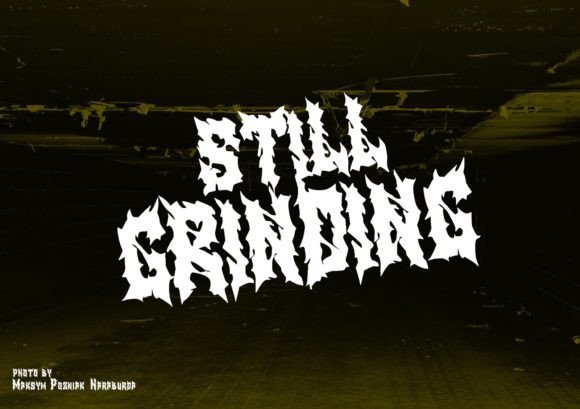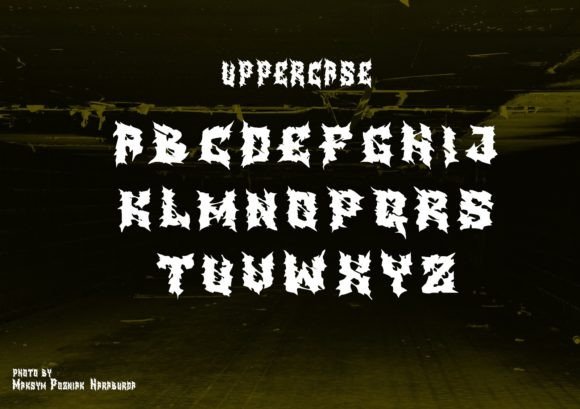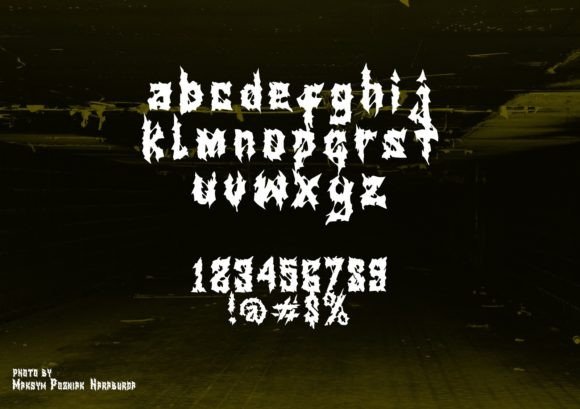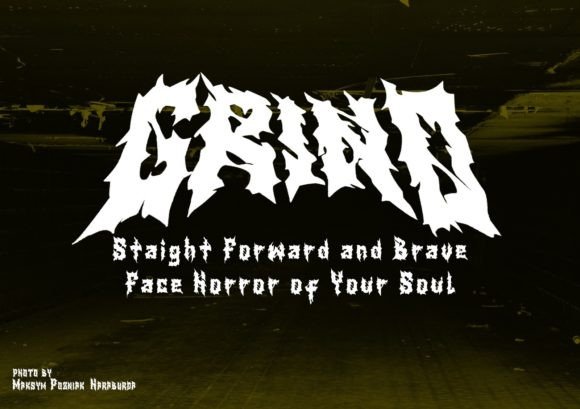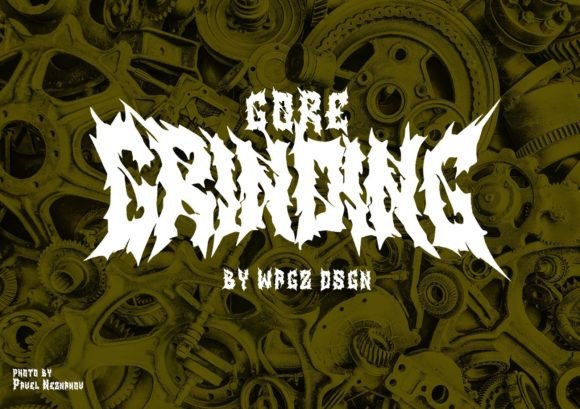
Introduction to Goregrinder (Full Version) Font
As a designer, have you ever been working on a project and thought, ‘I need something that screams horror and intensity’? Maybe you’re creating a campaign for a new horror movie, or designing a logo for a metal band. Whatever your creative project, you know that the right font can make all the difference.
That’s where the Goregrinder (Full Version) Font comes in – a powerful and visually stunning design resource that’s sure to grab attention. With its bold and imposing look, this font is perfect for anyone looking to add an element of fear and intensity to their work. Whether you’re working on a graphic design project, creating branding materials, or designing for the web or print, the Goregrinder (Full Version) Font is a valuable asset to have in your toolkit.
Goregrinder (Full Version) Font
- High-quality design resource ideal for creative projects requiring a bold and edgy look.
- Unique characteristics include a distressed, horror-inspired aesthetic, perfect for adding a touch of darkness to any design.
- Can be used for a variety of creative projects, from album artwork to movie posters and horror-themed merchandise.
Honest Review: Goregrinder (Full Version) Font
I recently had the chance to experiment with the Goregrinder (Full Version) Font, a popular design resource for creative projects. The font’s unique blend of industrial and brutal aesthetic caught my attention, and I wanted to dive deeper into its features and usability.
- ✨ High-quality design: The font’s attention to detail is impressive, making it perfect for projects where a professional look is a must.
- ⚠️ Limited font sizes: The font’s design works best at larger font sizes, which may limit its usability for smaller text.
- ⚠️ Not ideal for body text: Due to its bold and aggressive design, the font may not be the best choice for body text, where readability is a top priority.
Overall, I found the Goregrinder (Full Version) Font to be a great addition to any designer’s toolkit, particularly for projects that require a strong, industrial aesthetic. While it may have some limitations, its high-quality design and free availability make it a worthwhile resource for designers of all levels.
Goregrinder (Full Version) Font is ideal for creative projects that require a unique and eye-catching font. Some common use cases include:
- Graphic design projects
- Typography-based art
- Branding materials